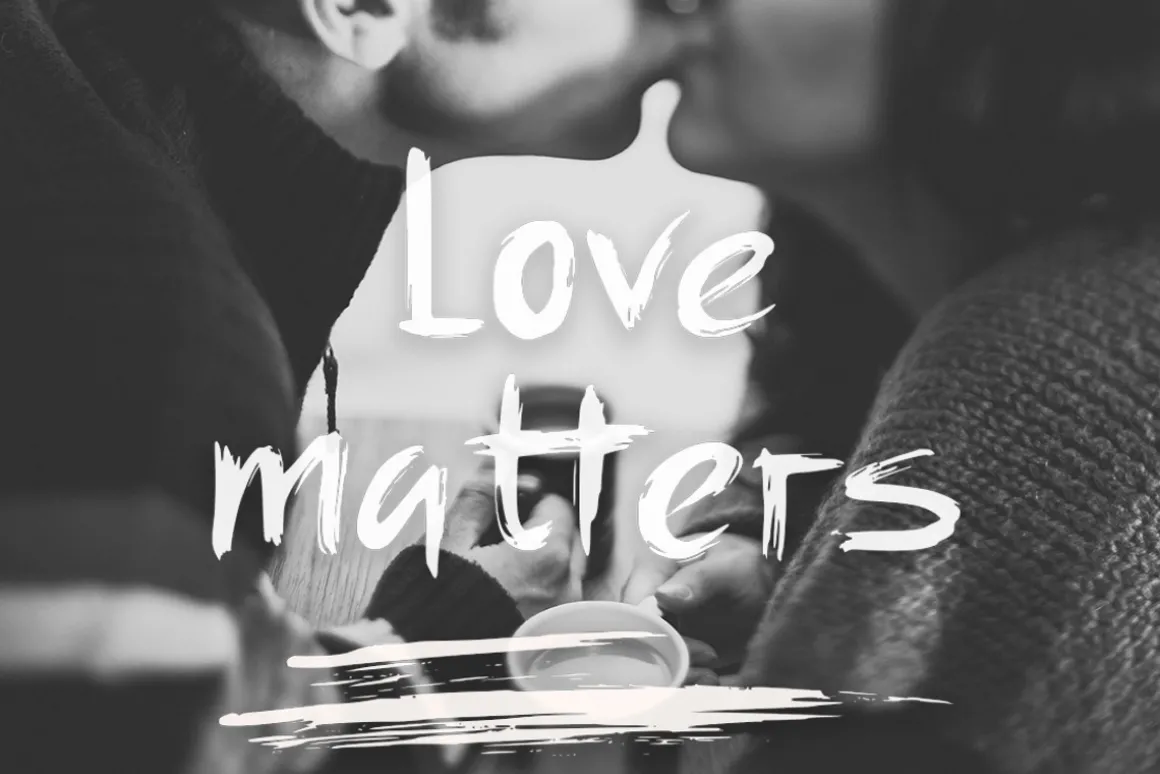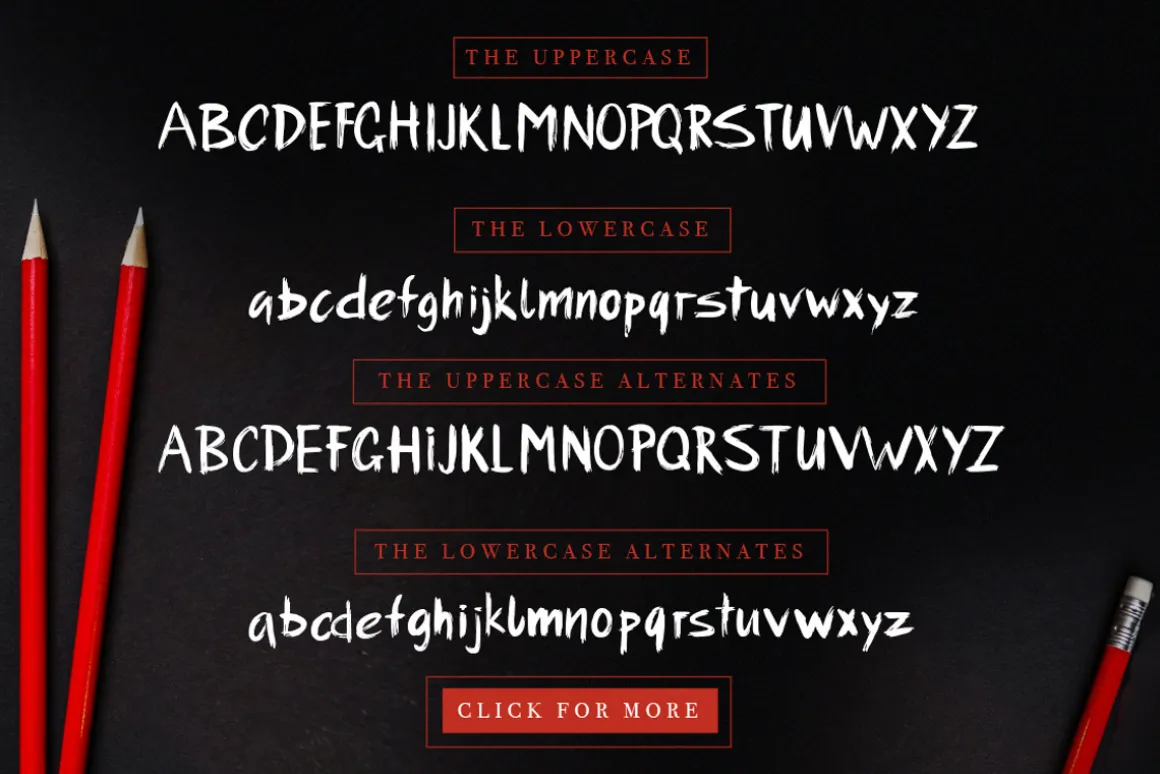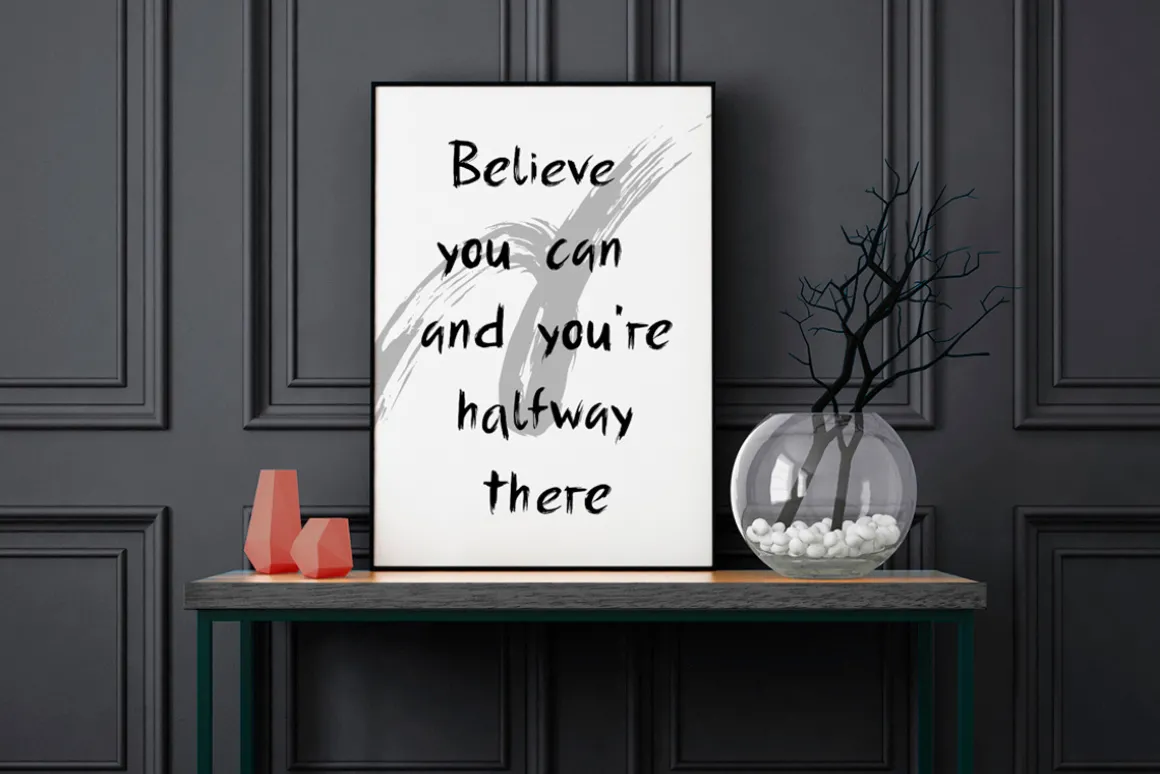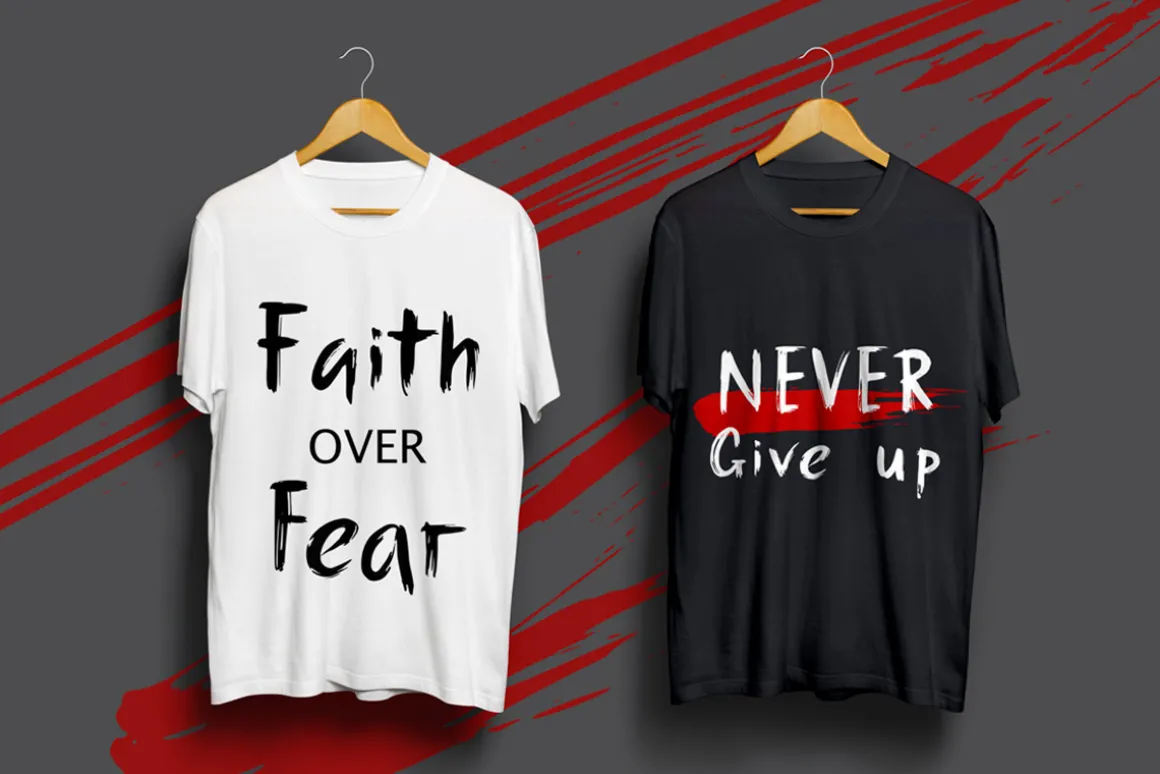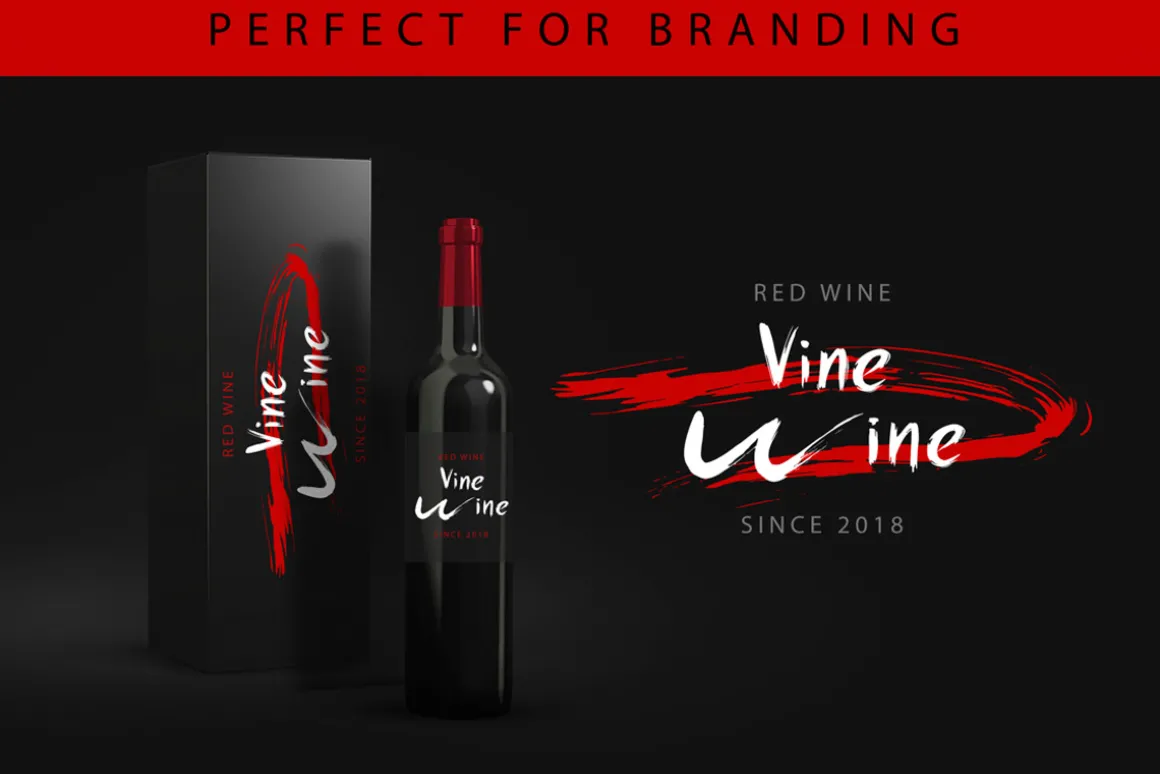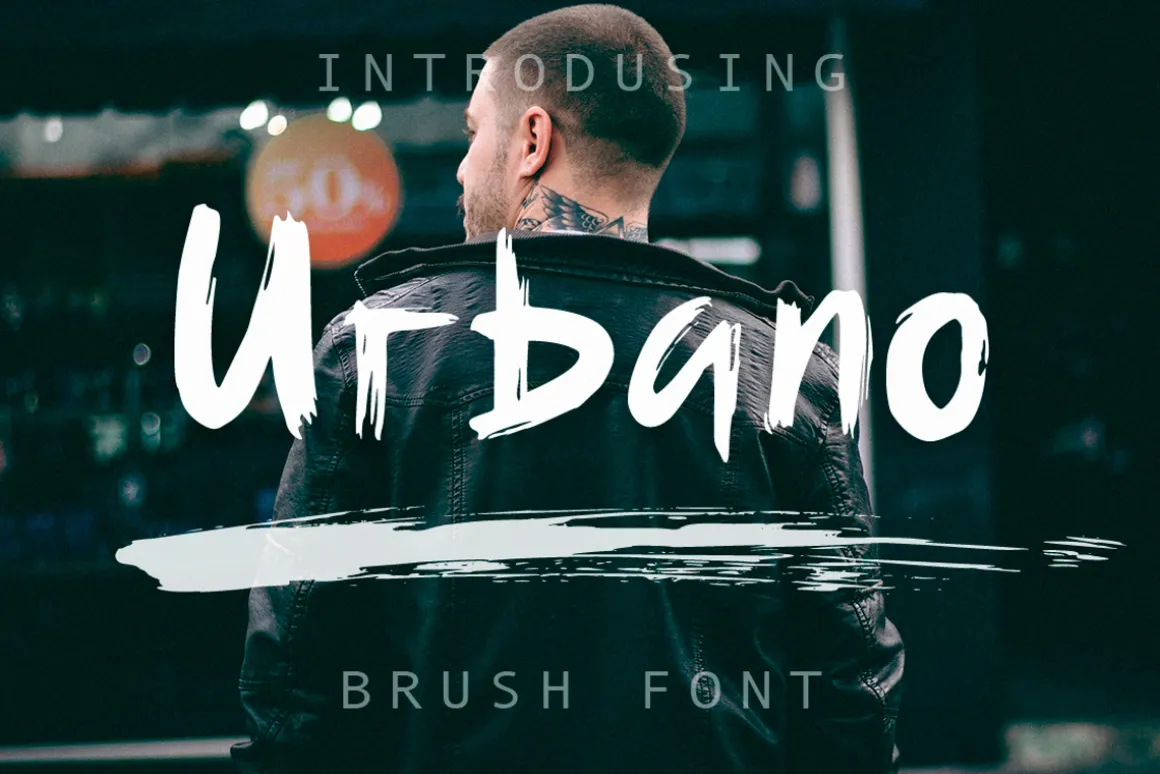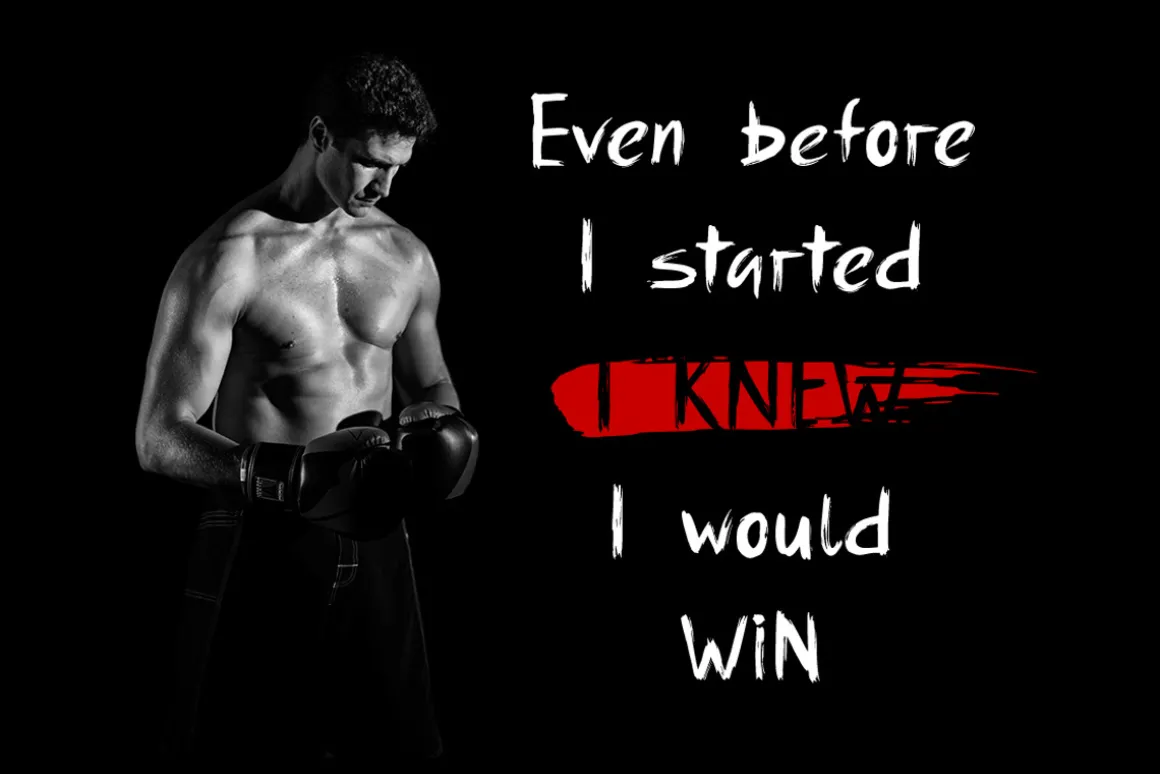
Introducing: Urbano!It’s urban handwritten brush font with its own special character.Rough texture of large brush and steep rapid brush strokes make Urbano perfect for branding projects, your logo designs, handwritten quotes, product packaging, merchandise & social media posts.
What makes Urbano unique?
- Handdrawn with of dry brush
- Full set of lowercase & uppercase letters
- Full set of lowercase & uppercase alternates
- Double Letter Ligatures
You will also get Urbano Swashes font.Urbano Swashes It’s extra font, which contains 26 hand-drawn swashes, the perfect finishing touch to underline your Urbano text. It’s very easy to create a swash – just install the font as usual and type any A-Z character.